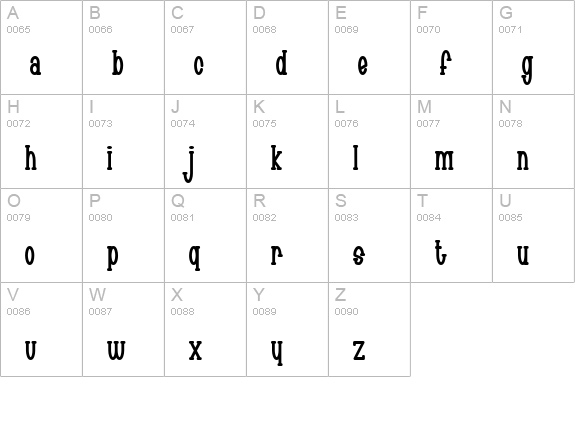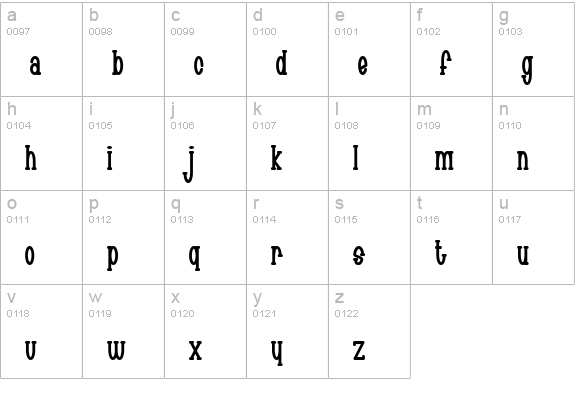
Chachie Font Details
Introducing Chachie font, a whimsical and charming typeface that brings a touch of playfulness to your designs. With its unique hand-drawn style and friendly vibe, Chachie font is perfect for adding a personal and quirky touch to logos, branding, invitations, and more. The flowing curves and irregular lines give this font a handcrafted feel, making it stand out from the crowd. And the best part? Chachie font is completely free to download at FontsMarket.com! Yes, you read that right - you can get your hands on this delightful font without spending a penny. Whether you're a designer looking to add some fun to your projects or just someone who appreciates a good freebie, Chachie font is sure to delight. So why wait? Head over to FontsMarket.com now and grab your free download of Chachie font today!